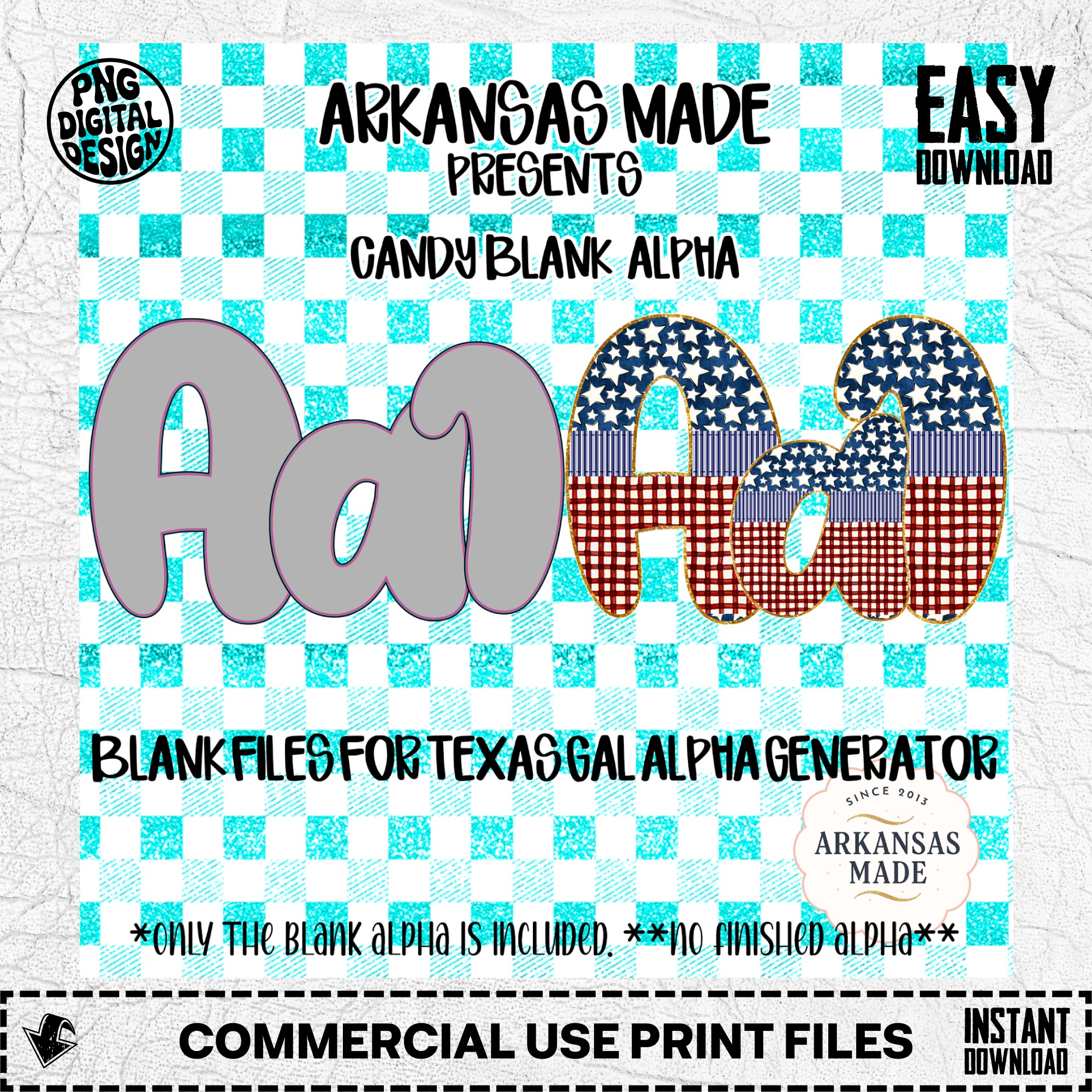
Candy Blank Alpha PNGs for Texas Gal Alpha Generator | Customizable Bubble Font Digital Files | DIY Craft Download
Unlock endless creativity with our Candy Blank Alpha PNGs, perfect for the Texas Gal Alpha Generator app! Craft unique designs instantly.
This versatile Candy Blank Alpha set offers playful, customizable bubble font letters, ready for your personal creative touch. Designed for crafters, DIY enthusiasts, and small business owners, these digital alpha files integrate seamlessly with the Texas Gal Alpha Generator. Fill them with your favorite patterns, textures (like faux glitter or printed gold effect), or colors to create stunning apparel, personalized gifts, or patriotic prints that truly stand out. Elevate your next project with these essential design resources.